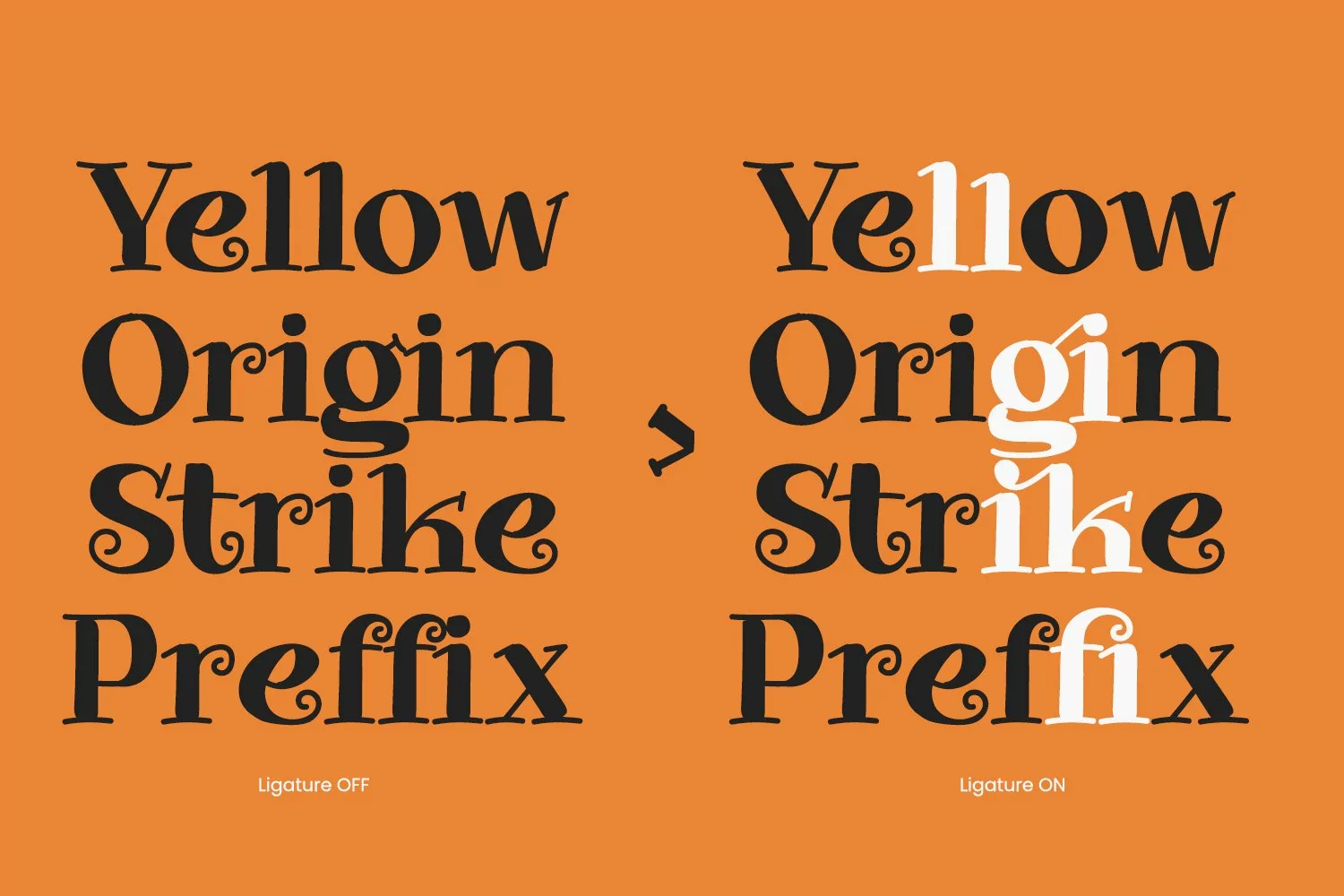
Begirdle
Begirdle is a captivating serif display font that masterfully blends playful elements with a modern style. The playful nature of Begirdle is evident in its unconventional and dynamic letter shapes. Each character incorporates subtle twists and curves, adding an element of surprise and creativity. These playful details make Begirdle perfect for applications where a sense of fun is desired.
Despite its playful character, Begirdle maintains a modern aesthetic that ensures it fits seamlessly into contemporary designs. The serif details add a touch of, while the overall design remains. This combination of playfulness and modernity makes Begirdle versatile enough for both casual and formal design projects. In addition, enjoy the features here.
Bigirdle fits in headlines, logos, posters, flyers, branding materials, print media, editorial layouts, and many more designs. Find out more ways to use this font by taking a look at the font preview.